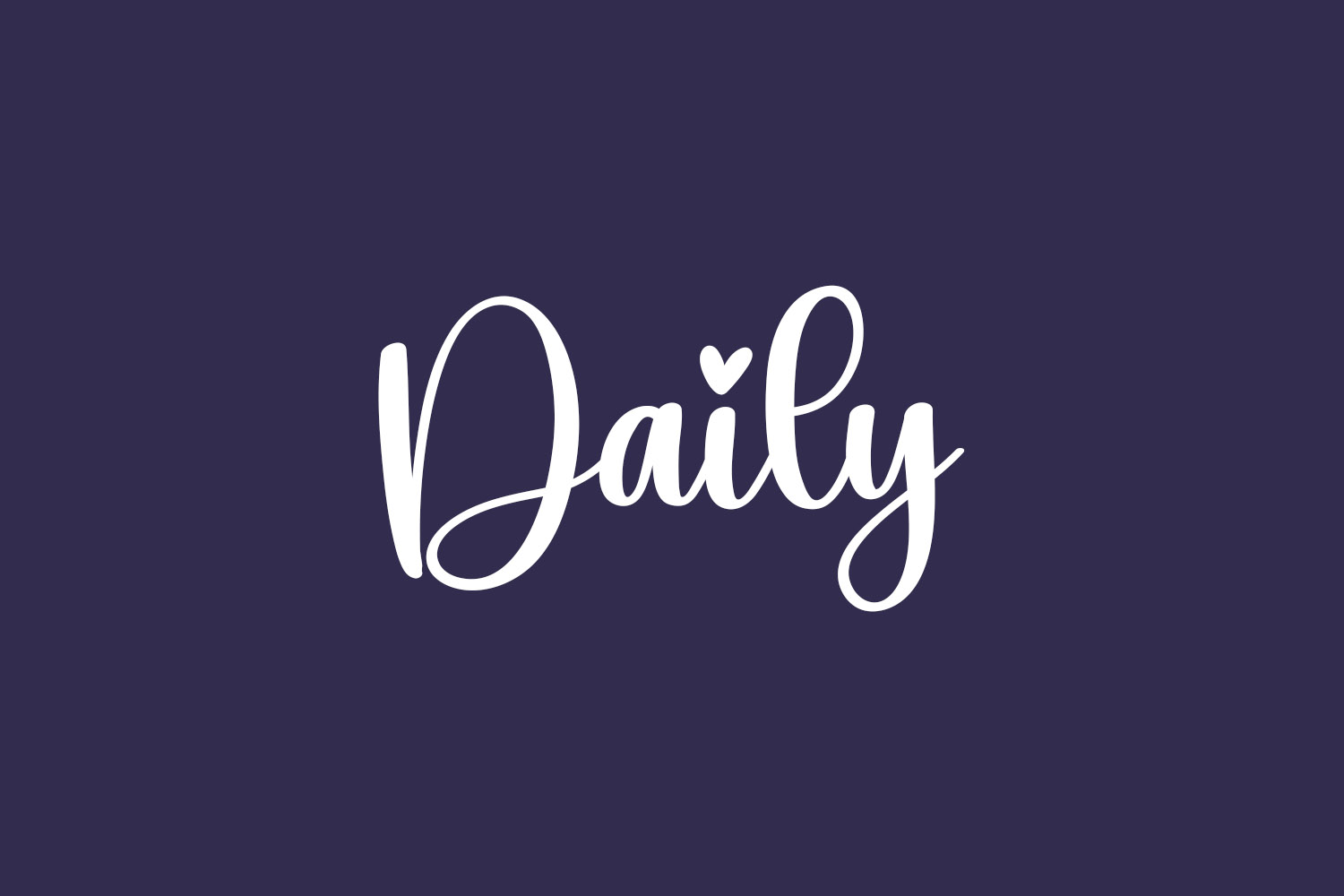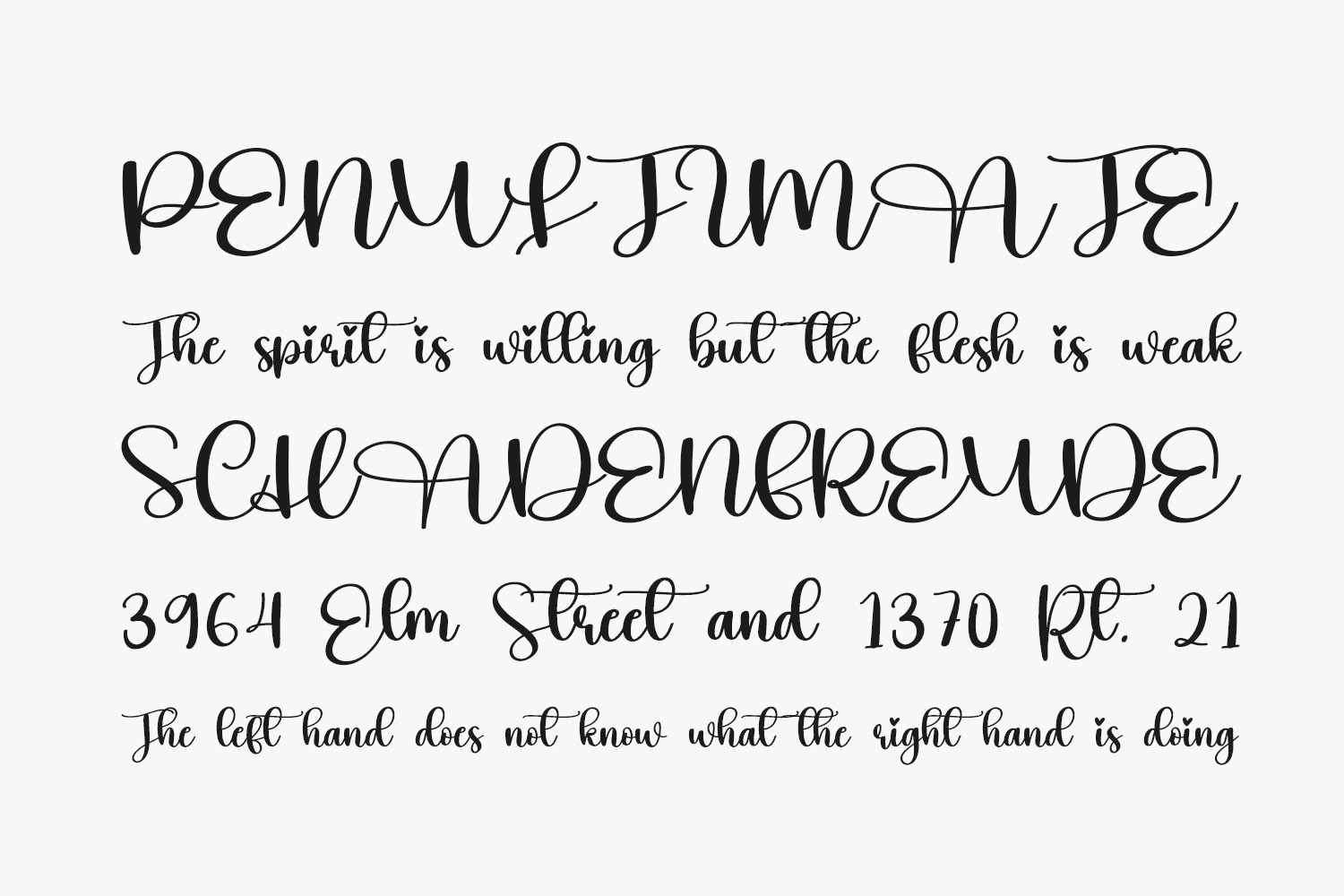
Daily Free Font’s exquisite lettering is an ideal choice for showcasing on walls, elevating wedding invitations, creating captivating logos for social media posts, designing eye-catching advertisements, enhancing product packaging and design, crafting labels, adding a personal touch to photography, imbuing watermarks with elegance, extending invitations with a unique flair, elevating stationery, and enriching any project that craves a sophisticated handwritten essence. Daily Free Font is free for personal use only. Please purchase the full version for commercial use.
Designed by Scratchones